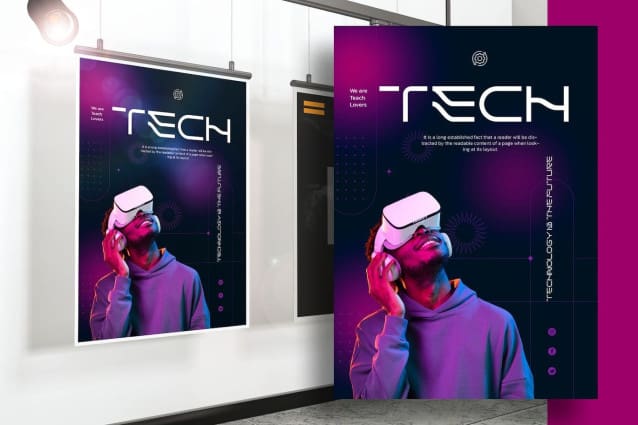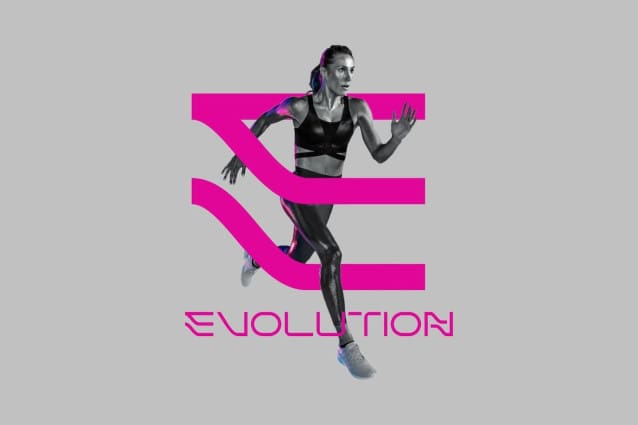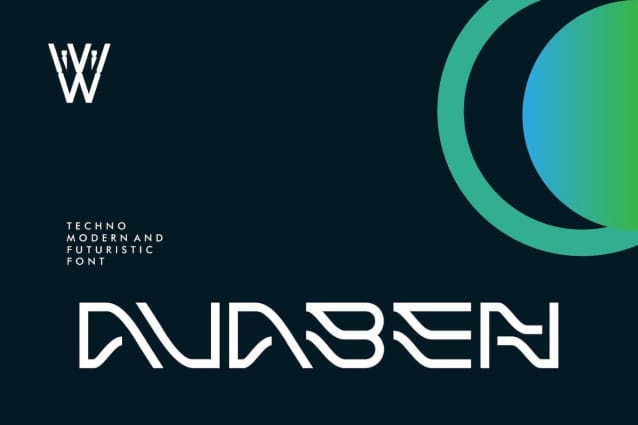
Avaben Futuristic Font
Avaben Futuristic Font, will take you to the next level with a stunning typeface that can showcase elegance but with a minimalist form.
The curves at each end of the letter ornament show that this font is perfectly suited to the present and the future.
Minimalist yet luxurious and chic. Whether used for branding, design templates, as invitations, calendars, posters, headlines, brochures, promotional tools or editorial designs, Avaben was created to meet the visual needs of technological development.
The versatile nature of the Avaben Futuristic font makes it suitable for titles, Logos and lettering. Its readability guarantees clear communication while attracting attention. Avaben is the perfect choice for those looking for a typeface that embodies the future and a sophistication that will not be limited by time. With a futuristic style but with a touch of Y2K style, it can take you to a different visual work.